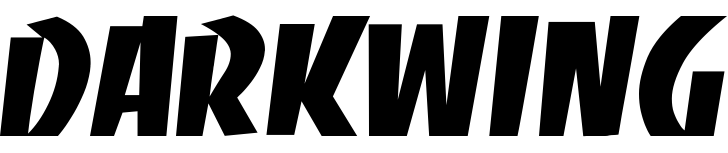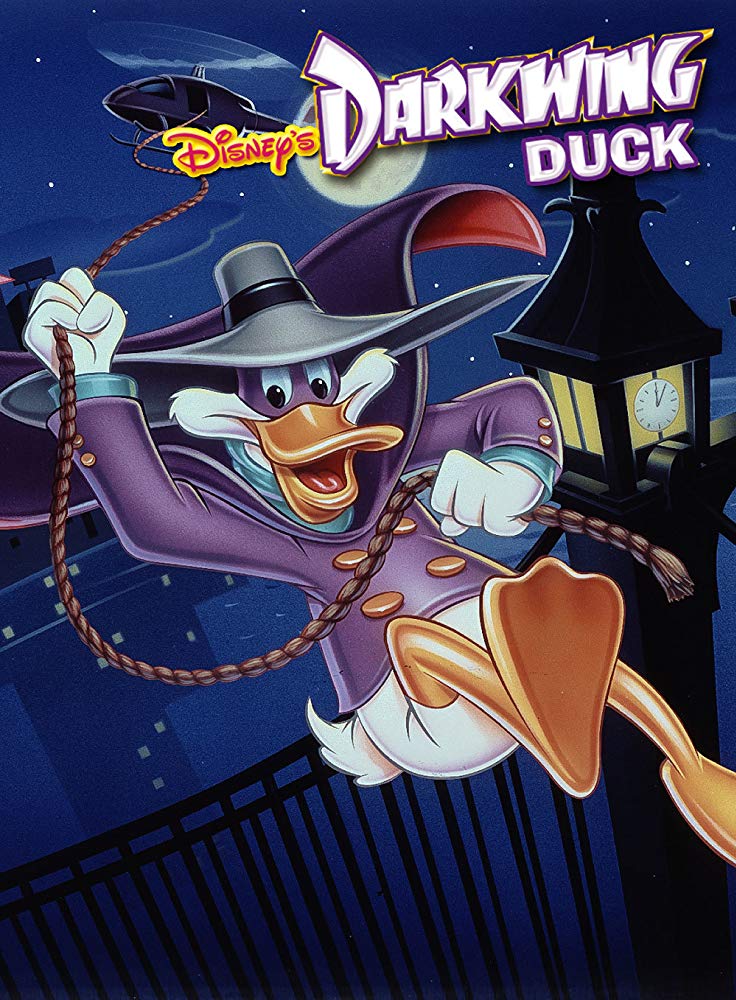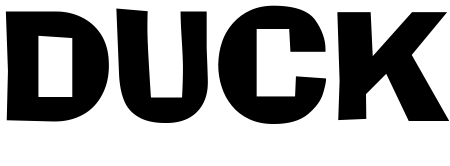
Darkwing Duck Font
AnimationDarkwing Duck is a 1990s American animated action-adventure comedy television series produced by Walt Disney Television Animation. It features the titular character, a superhero duck who fights crime in the fictional city of St. Canard.
The Darkwing Duck title uses two fonts; the “DUCK” part is set in Ad Lib designed by Freeman Craw for American Type Founders. The “DARKWING” part is written in an inclined titling typeface called Banco, created by Roger Excoffon for the Fonderie Olive foundry in 1951.